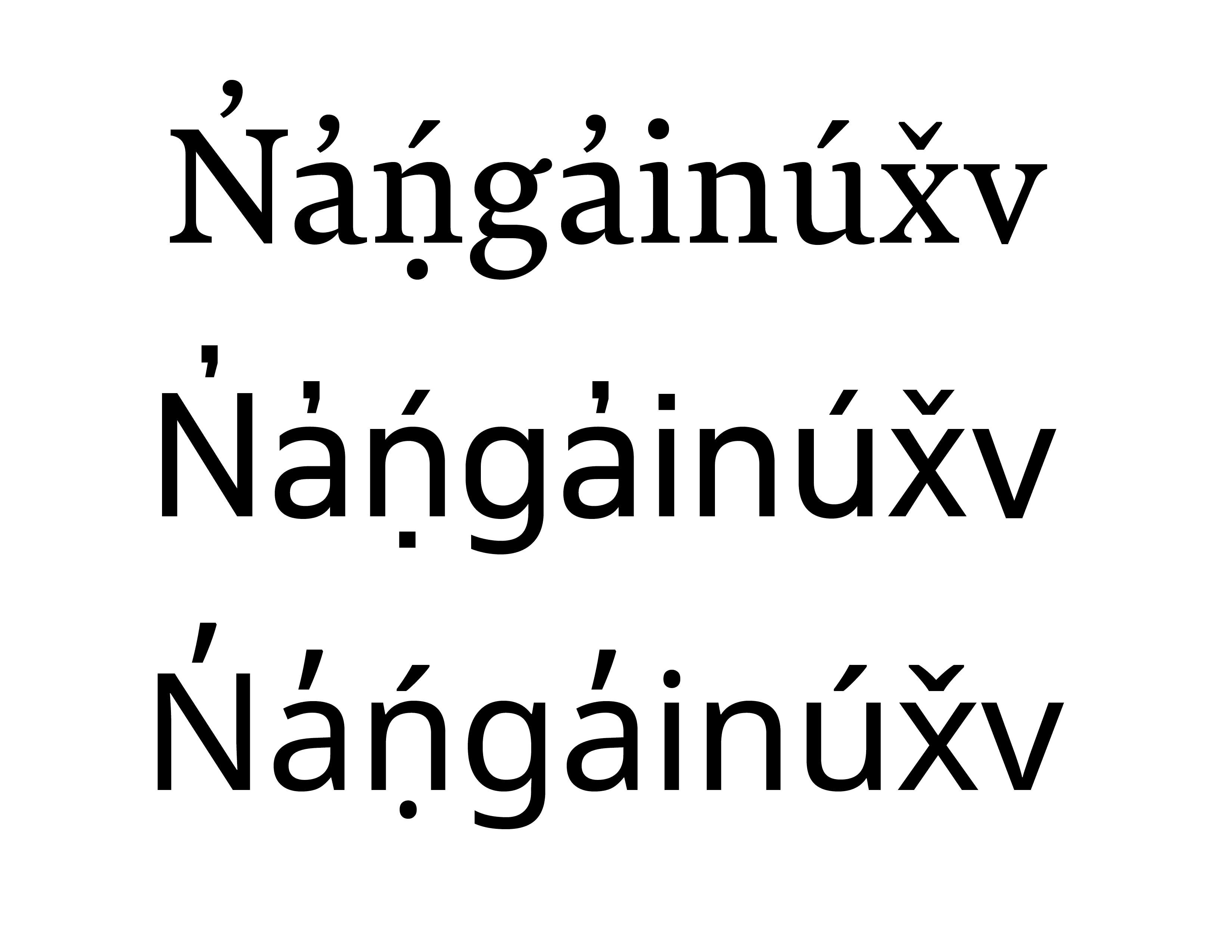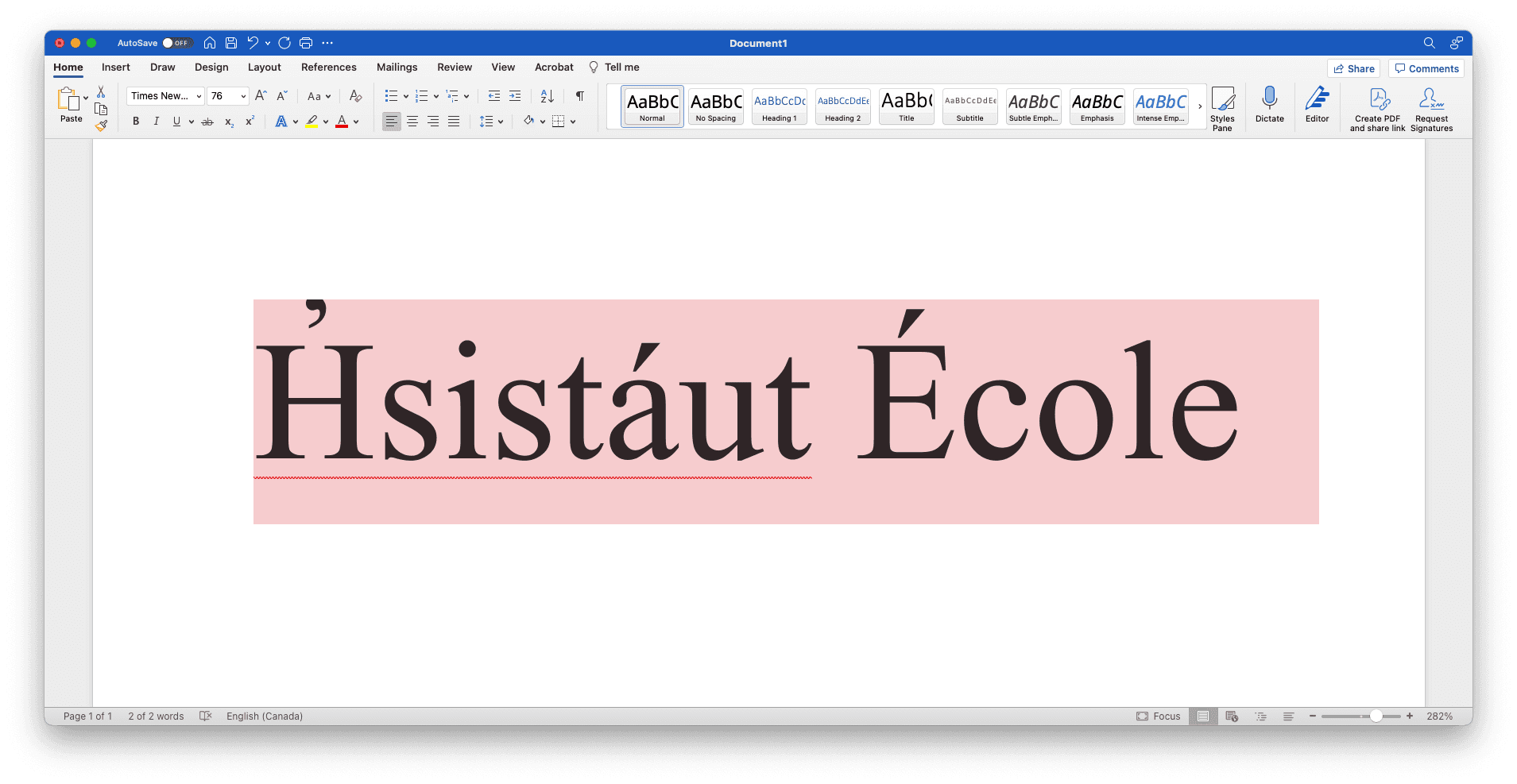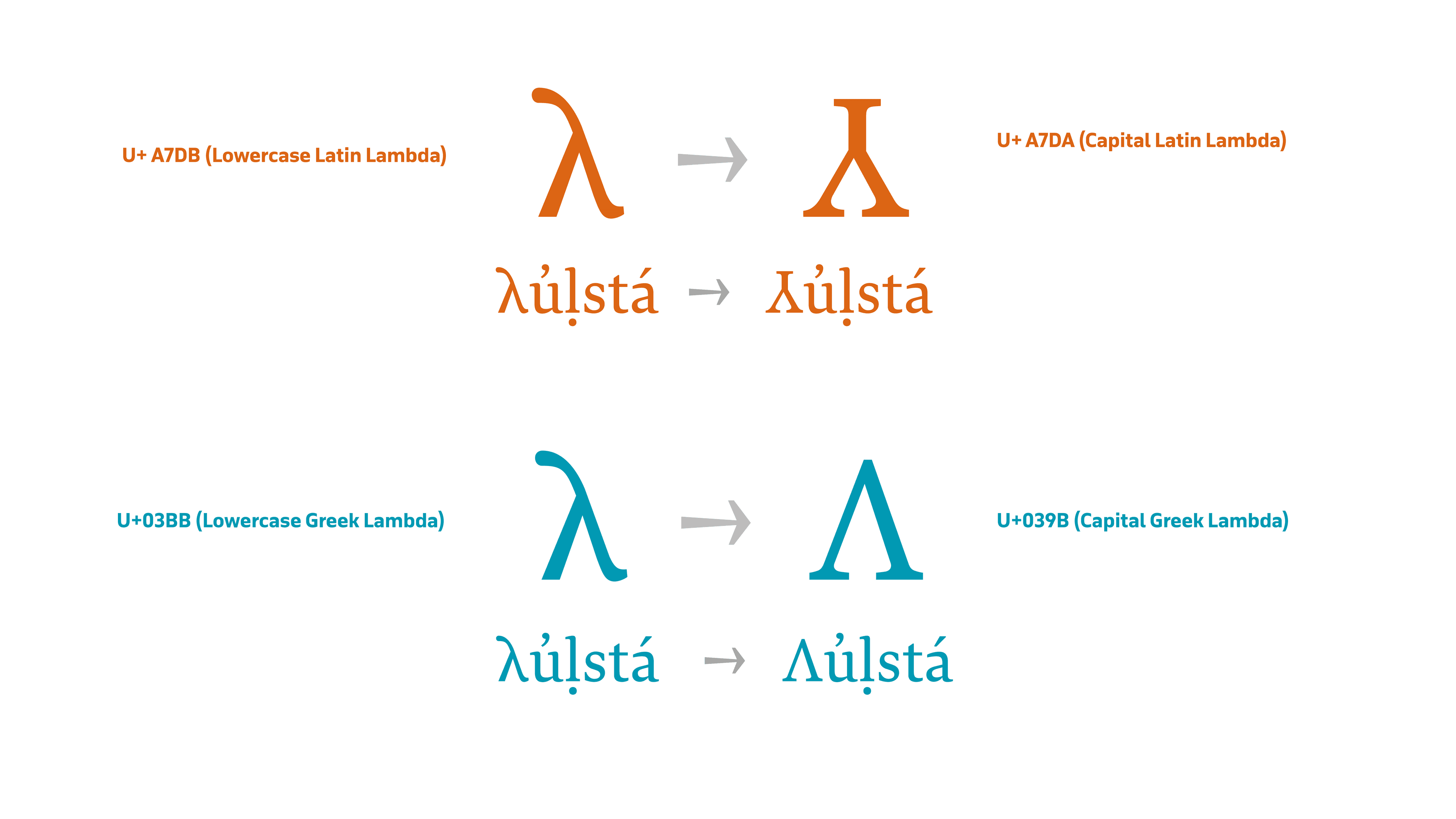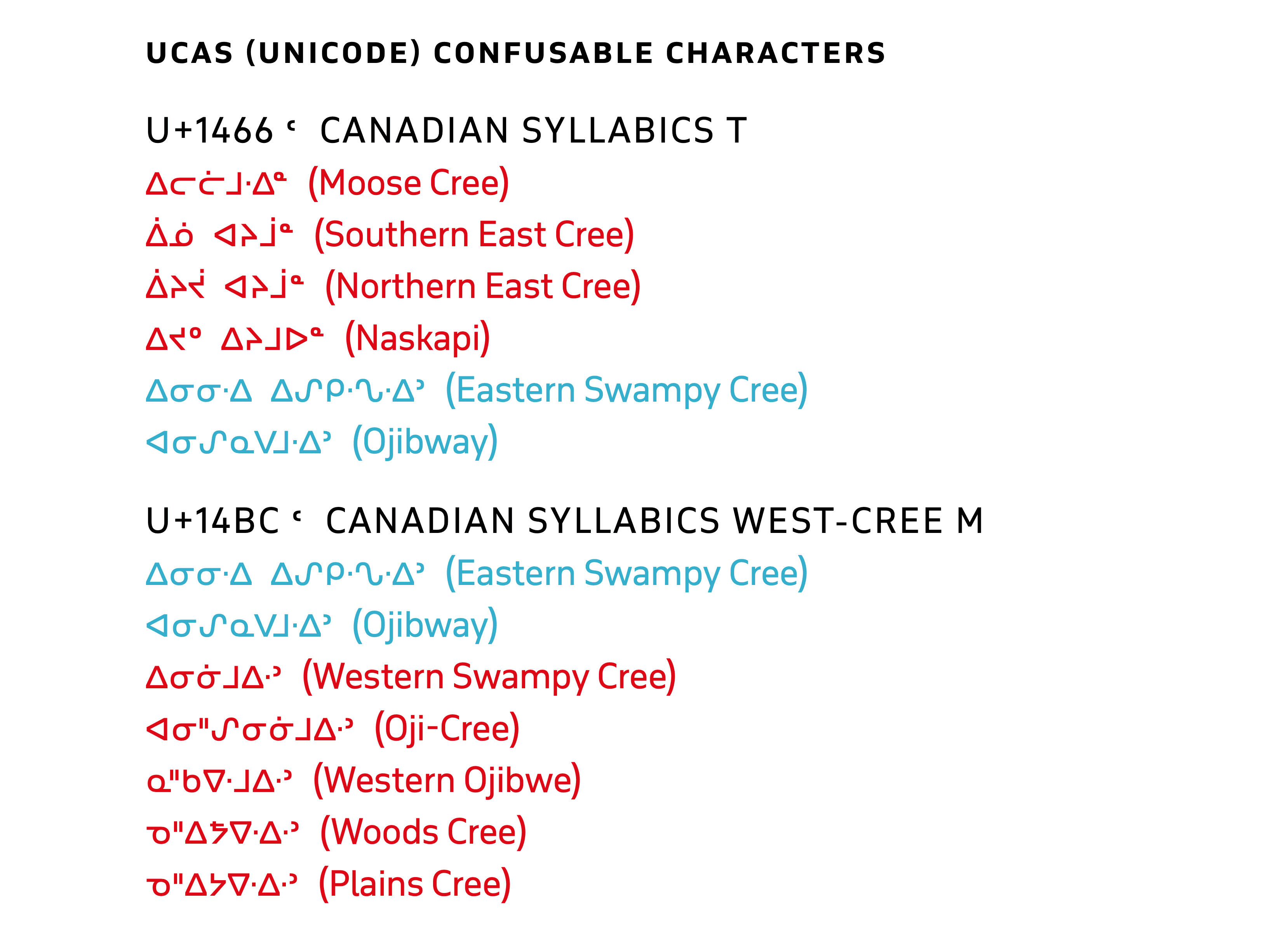
Typotheque Indigenous North American Type
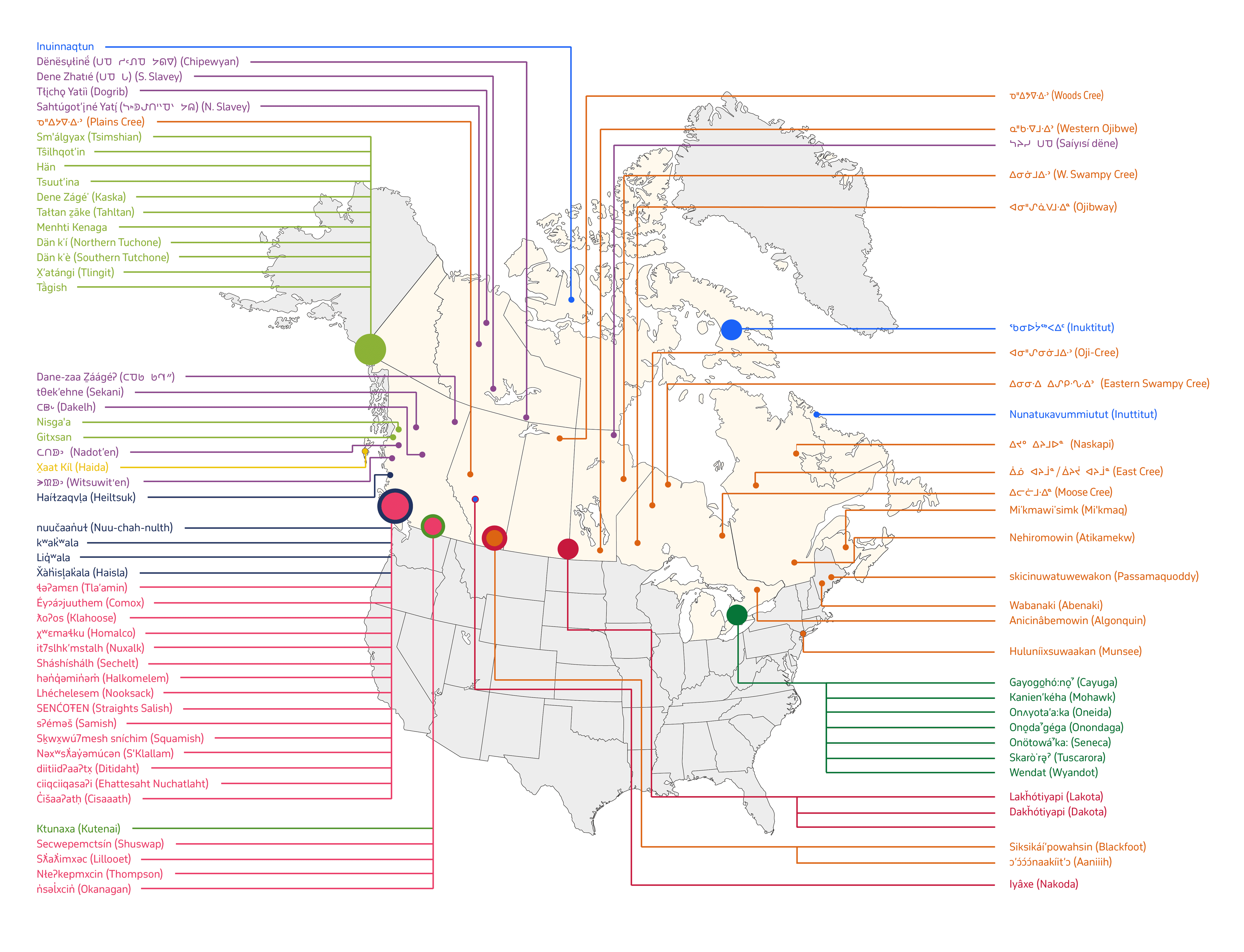
A Collaborative Research Project to Overcome Digital Language Support Barriers for Indigenous North American Typography
We work not only with major languages that bring in most of our company revenue, but are committed to supporting digitally under-resourced languages, and working with Indigenous communities in their goals for language revitalization and reclamation.
We are partnering with the Nattilik, Dakelh, and Haíɫzaqv communities in order to overcome technical challenges faced by these communities at the Unicode Standards level. We work together with these and other communities to provide digital language tools and solutions without charge so that they can access, write and view the correct typographic representation of their languages on all of their digital devices with reduced and ideally no barriers, strengthening the overall vitality of these languages both today and into the future.
Typotheque Indigenous North American Type Project
The 293 First Nations, Inuit, and Métis communities across what is now Canada speak 84 languages and dialects in both traditional homelands and in urban centres. There is a great wealth of orthographic and typographic variation within the unique writing systems that these communities employ to represent their languages. Our project aims to strengthen the active language revitalization, preservation, and reclamation programmes within Indigenous communities by supporting easier and barrier-free access to utilising their writing systems in digital spaces.
Despite the high number of living languages and rich (ortho)graphic diversity, Indigenous communities continue to face widespread challenges in actively accessing and using their languages on digital platforms. These barriers stem both from questions around how a community’s orthography must perform for accurate reading and comprehension, and also in how the typography must appear and shape the orthography in text composition. Even if a community has a stable digital text encoding framework and supportive language tools, issues presented by a lack of adequate keyboards, accurate font rendering support and glyph representation can restrict a community’s ability to exercise self-determination over the appearance and functionality of their language. Digital texting on smartphones, computers and other platforms is an essential space for everyday language engagement, mobilisation and transmission. Challenges of any kind in these domains risk the success of community-driven language revitalization, preservation and reclamation programmes, and impede their overall sovereignty.
In order to overcome such challenges, we are working to comprehensively research and document the text encoding, keyboard sources, technical issues, and typographic preferences for each individual and specific Indigenous language community in North America, with the goal of reducing barriers to access and strengthening the digital and overall vitality of these languages today and into the future. We will do this by working in active collaboration with local Indigenous language keepers in each community. Through direct and highly customised partnerships with each individual community, we will ensure that the information pertaining to the completeness of Unicode character sets and stability, keyboard layouts, font support, and Common Locale Data Repository (CLDR) data gathered is accurate and community-centred.
This work is timely and urgent, not only given UNESCOs International Decade of Indigenous Languages (2022 – 2032), but also in light of the latest Canadian Census data (2021) which reports 237,420 Indigenous language speakers in Canada, marking a decline of 10,750 speakers from the 2016 Census, the first decline since comparable data on these languages began to be collected in 1991. On the other hand, the First Peoples’ Cultural Council’s 2022 Report ‘On the status of B.C. First Nations Languages’ documents an encouraging increase of 3,106 new language learners since 2018. Based on our conversations and the 6 existing collaborative partnerships with Indigenous language communities across Canada – Sḵwx̱wú7mesh sníchim (Squamish), Haíɫzaqv (Heiltsuk), Secwepemctsín (Shuswap), ᑕᗸᒡ (Dakelh / Carrier), ᓇᑦᕠᓕᖕᒥᐅᑐᑦ (Nattilik), ᓀᐦᐃᓇᐍᐏᐣ (nêhinawêwin / Swampy Cree) – in which we are already engaged, the success and stability of current language revitalization efforts hinge on how readily the language can be mobilised in digital spaces and on everyday devices. Barriers towards using Indigenous languages in digital spaces significantly restrict the ability of community members to engage with all users, and younger generations of learners in particular. Impediments to digital access can further negatively impact a community’s ability to preserve texts and use their language reliably in day-to-day scenarios. We anticipate that our project will begin in the Spring of 2024, with a focus on two Indigenous language communities in the first, pilot phase. From here, we hope to grow the project to include other communities.
About Language Support and Typography Issues for Indigenous Communities in North America
Below are some examples of different, common technical issues that Indigenous language communities in North America face in using their language in digital spaces:
Unicode and Text Encoding
The Unicode Standard is the international standard for how all text is encoded on digital devices. This means that all characters in a language's orthography must be included in Unicode for it to be accessible for typing and exchanging text across devices such as desktop computers, smartphones, and tablets:
In order for any language to be fully and accurately supported across all devices, the required characters must be in Unicode and our digital devices must follow the Unicode Standard, meaning that the language tools (keyboard and fonts) that we use on such devices must be fully Unicode-compliant. If these criteria are met, then we are able to accurately and consistently display text on all of our devices and share texts with anyone else's device.
Proposing Additions or Revisions to the Unicode Standard